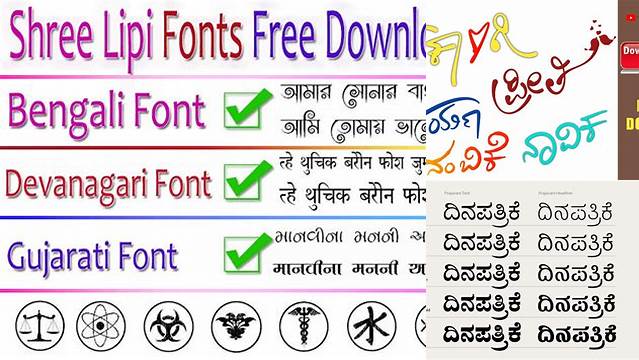
Are you looking to add a touch of elegance and readability to your Kannada text? Look no further! This guide provides everything you need for a Kannada Shree Lipi fonts free download. Shree Lipi fonts are a popular choice among designers, writers, and anyone who wants to create visually appealing Kannada content. We'll explore why Shree Lipi fonts are so well-regarded, how to download and install them, and even some tips for using them effectively. So, let's dive in, guys!
What Makes Shree Lipi Fonts Special?
Shree Lipi fonts have earned their reputation for several key reasons. Primarily, they are meticulously crafted to ensure the accurate representation of Kannada characters, which is absolutely vital. This includes the complex ligatures, vowel modifications, and other unique features of the Kannada script. They ensure that every word looks fantastic on the screen or in print. Furthermore, Shree Lipi fonts often come with a range of styles and weights. This gives you plenty of choices to match the style of your work. Need something bold for a headline? No problem! Want a more delicate look for body text? Shree Lipi has you covered. Another advantage of Shree Lipi fonts is their widespread compatibility. They are designed to work seamlessly with various software, including popular word processors, design programs, and operating systems. This ease of use makes them an ideal choice for both beginners and experienced users. When you are using these fonts, there is a guarantee that your Kannada text will look clean, professional, and easy to read. This is really important to keep in mind. These fonts usually receive regular updates and support. This ensures that they remain compatible with the latest software and continue to offer the best possible rendering of Kannada text. For a lot of people, the fact that Shree Lipi offers a variety of font styles is a big deal. You can choose from different weights, such as light, regular, bold, and even extra bold. You can also explore different styles, such as serif, sans-serif, and more decorative options. This flexibility allows you to tailor the fonts to your specific needs, whether you are designing a poster, writing a document, or creating a website. Finally, remember that Shree Lipi fonts often include a comprehensive set of glyphs. This ensures that you can access all the necessary characters, including special symbols, punctuation marks, and more. This comprehensive character set is critical for creating accurate and complete Kannada text. Ultimately, the popularity of Shree Lipi fonts boils down to their ability to combine accuracy, versatility, and user-friendliness. Whether you are a professional designer or someone who simply wants to create attractive Kannada content, Shree Lipi fonts are an excellent choice.
The Benefits of Using Shree Lipi Fonts
Using Shree Lipi fonts offers several key benefits that make them a preferred choice for Kannada typography. First and foremost, Shree Lipi fonts guarantee the accurate rendering of Kannada characters. This is extremely important when working with a complex script like Kannada. The fonts are meticulously designed to ensure that all the characters, ligatures, and vowel modifications are displayed correctly. This meticulous design eliminates the risk of garbled or distorted text. In addition to accuracy, Shree Lipi fonts provide a wide range of styles and weights. This allows you to customize the look of your text to match your specific needs and preferences. Whether you need a bold font for headlines or a more delicate font for body text, Shree Lipi has the options you need. Another significant benefit is their compatibility. Shree Lipi fonts are designed to work seamlessly with a variety of software and operating systems, which makes them very easy to use. Whether you are using Windows, macOS, or Linux, you can be sure that these fonts will work without any issues. Shree Lipi fonts are designed to be user-friendly. They are easy to install and use. This makes them accessible to both beginners and experienced users. You don't need to be a design expert to use these fonts effectively. A huge advantage of using Shree Lipi fonts is their ability to improve the visual appeal of your Kannada text. The fonts are designed to be aesthetically pleasing. They help to create a professional and polished look. They can significantly enhance the overall impact of your work, whether you are creating a website, designing a poster, or writing a document. Overall, Shree Lipi fonts are a great choice. They are accurate, versatile, and easy to use. They also add to the visual appeal of your Kannada text. They are a valuable tool for anyone who works with the Kannada script.
Using Shree Lipi Fonts Effectively
Once you've successfully installed the Shree Lipi fonts, it's time to get creative! When selecting a font, think about the purpose of your text. Shree Lipi fonts are great for body text, headlines, and everything in between. However, some styles are better suited for specific uses than others. For example, a bold, sans-serif font might be ideal for a headline, while a more delicate serif font could be better for a paragraph of text. Experiment with different font sizes and weights to achieve the desired visual balance. Proper font size is essential for readability. Make sure your text is large enough to be easily read, and that your headlines are noticeably larger than your body text. Also, consider the weight (boldness) of the font. A bolder font will grab attention, while a lighter weight will appear more subtle. To make your text even better, use appropriate kerning and leading. Kerning is the space between individual letters, and leading is the space between lines of text. Fine-tuning these settings can significantly improve the readability and aesthetics of your text. Pay attention to alignment. Left-aligned text is usually easiest to read, but you can also experiment with centered or justified text depending on your design. Also, think about color. The right color can make your text pop! Experiment with different colors to see what looks best. You can also use color to create contrast and emphasize certain words or phrases. Make sure that your font is properly encoded. This guarantees that the Kannada characters are displayed correctly. Most word processors and design software have options to set the character encoding, so make sure to set it to UTF-8 or another encoding that supports Kannada. Consider using Shree Lipi fonts for your logo. A well-chosen Shree Lipi font can really make your logo stand out. Explore different styles and weights to find the one that best represents your brand. Before finalizing your design, always proofread your text carefully to catch any errors. Also, test your design on different devices and screen sizes to ensure that it looks good everywhere. By implementing these tips, you can make the most of Shree Lipi fonts. This will enhance the appearance and effectiveness of your Kannada text.
Tips for Creating Visually Appealing Kannada Text
Creating visually appealing Kannada text goes beyond just choosing a font. Let's look at some additional tips to make your text stand out! First off, consider your target audience. Who are you trying to reach? Tailor your font choices and overall design to appeal to them. A font that works well for a young audience might not be suitable for a more traditional audience. When working with Kannada script, make sure to pay close attention to the diacritics and conjunct consonants. Ensure that these elements are rendered correctly and don't overlap or distort the text. This is essential for clarity and readability. The use of white space is your friend! Don't overcrowd your text. Ample white space around your text and between lines enhances readability and makes your design more inviting. Use contrast wisely. Pair Shree Lipi fonts with other design elements, such as colors, images, or other fonts. This can create visual interest and draw attention to your text. When designing for print, consider the paper quality. The type of paper you use can affect how your text looks. Matte paper is less reflective than glossy paper and can make your text easier to read. When designing for the web, make sure your font is web-safe. This ensures that your text will display correctly on all devices. Use responsive design techniques to ensure your text looks good on all screen sizes. When working with Kannada text, try to avoid overly long lines of text. Shorter lines of text are easier to read and can improve readability. If possible, try to break up your text into smaller paragraphs or sections. This will improve its readability and make it easier for your audience to absorb the information. Always proofread your text carefully for any spelling, grammar, or punctuation errors. Typos can really detract from the visual appeal of your design and may reduce your credibility. Consider the overall layout of your design. Use visual hierarchy to guide your audience's eye. The use of headlines, subheadings, and other visual elements can help to create a clear and organized layout. By implementing these tips, you can create visually appealing Kannada text that is sure to make an impact and impress your audience. Good luck, guys!